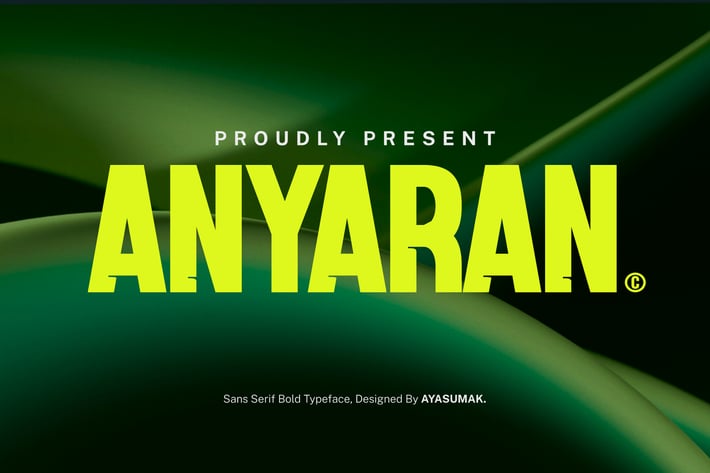
Anyaran - Luxury Modern Font
Introducing Anyaran - Luxury Modern Font - a Modern Professional Typeface excellent used for Heading or Title, Logotype, Merchandise, Clothing, Magazine, Corporate, Sports, Event, Ticket and many more.